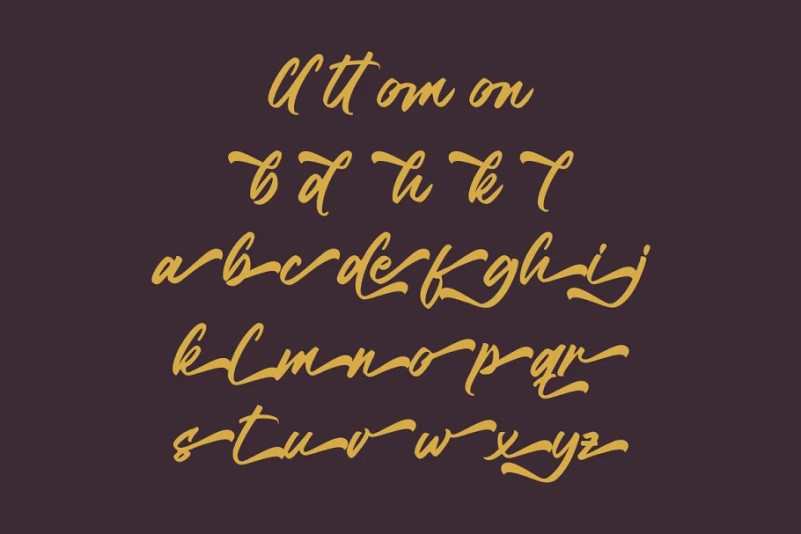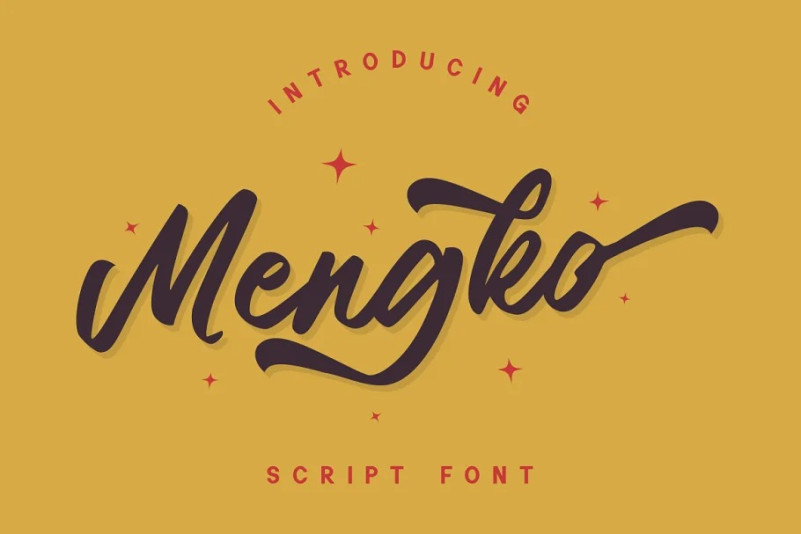
Mengko Font
Looking for a unique, stylish, and fun font for your next project? Mengko Script font, This font is perfect for any design project that requires script fonts,..